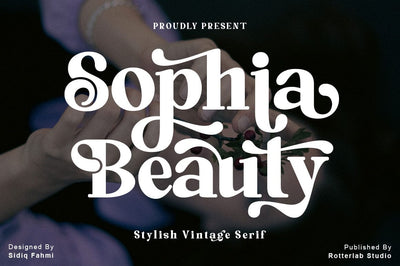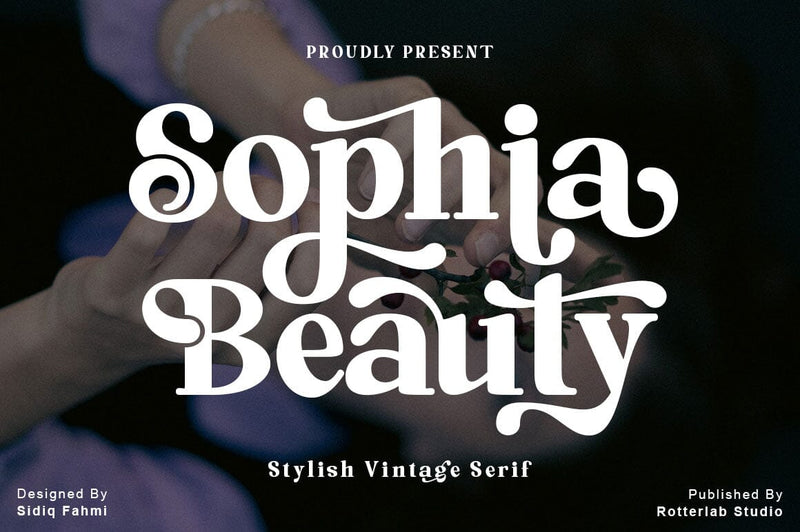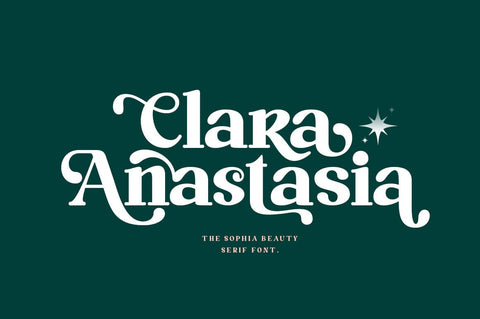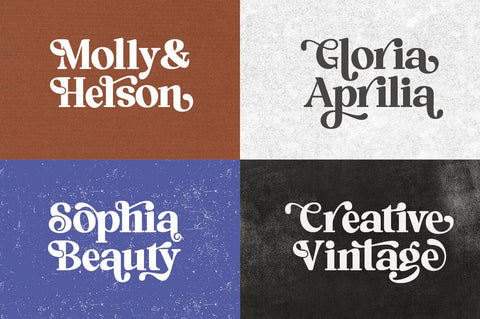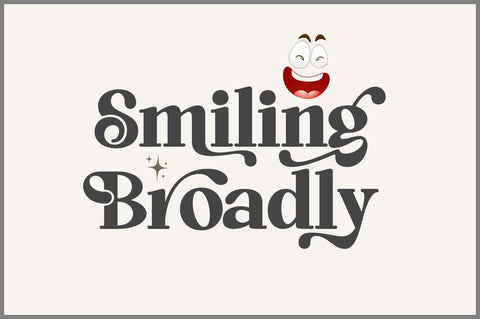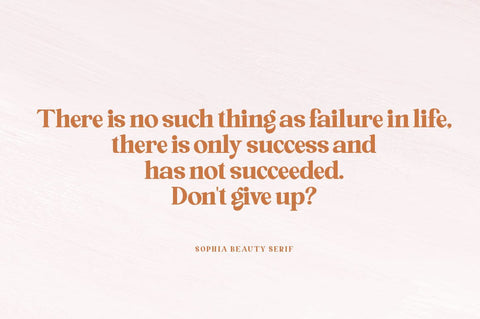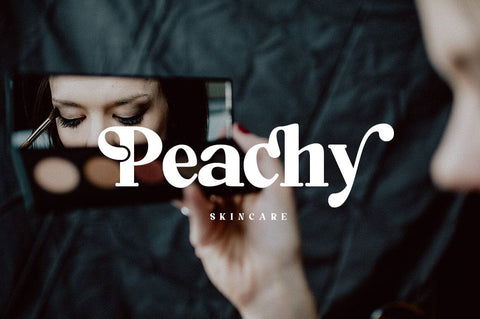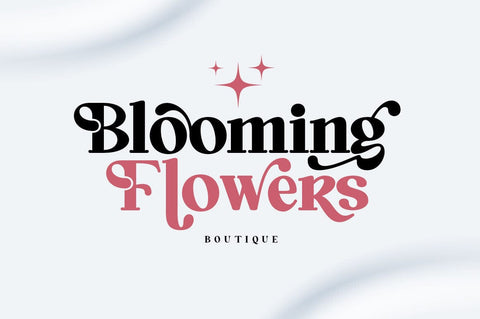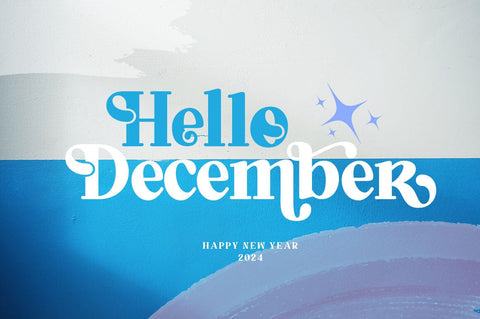
Sophia Beauty - A Modern Serif Font
Sophia Beauty is a modern serif font with a unique ligature style, a high contrast and light font perfect for feminine logo signs, fashion heads & editorial designs, branding projects, Clothing Branding, packaging, magazine headings, advertising, T-shirts, postcards and much more.
Sophia Beauty is also included full set of:
Uppercas
Lowercase letters
Automatic ligatures
Multilingual characters
Numerals
Punctuation